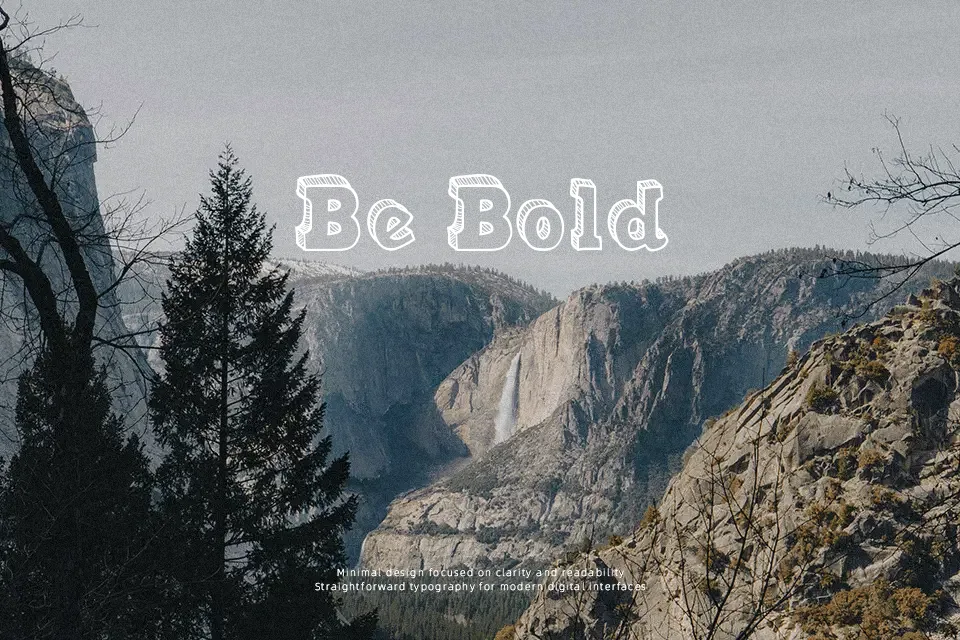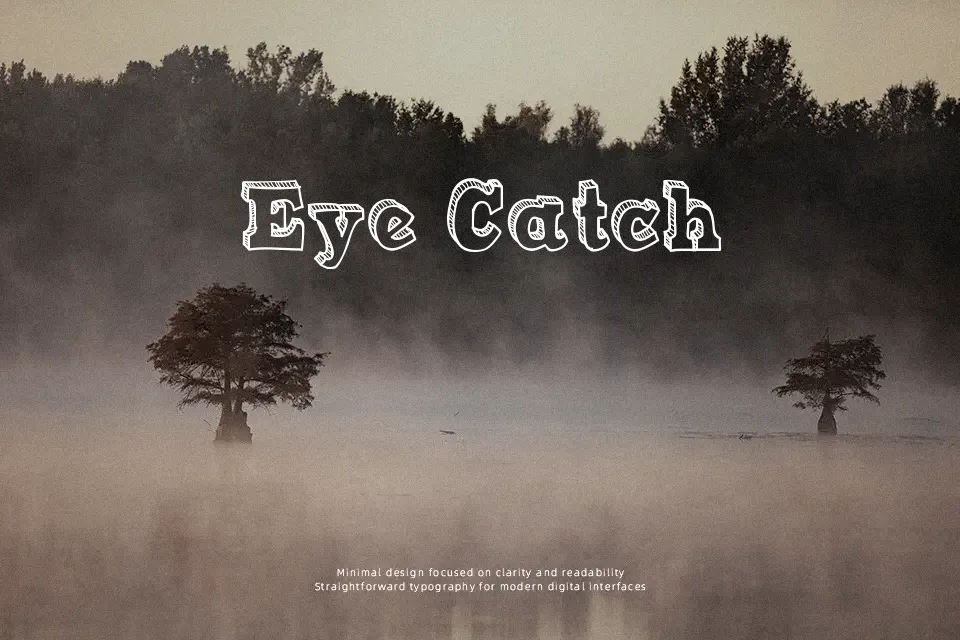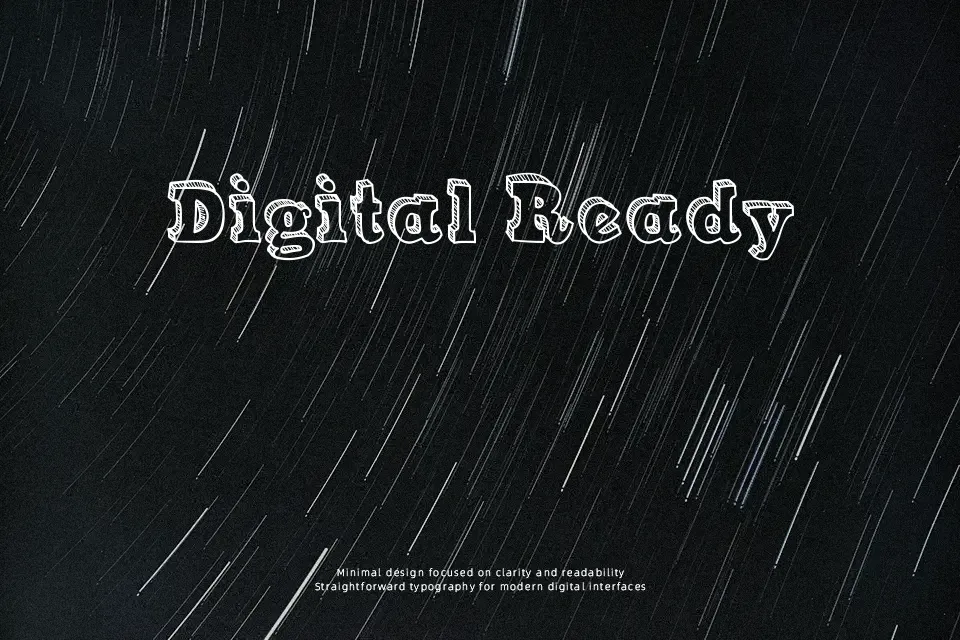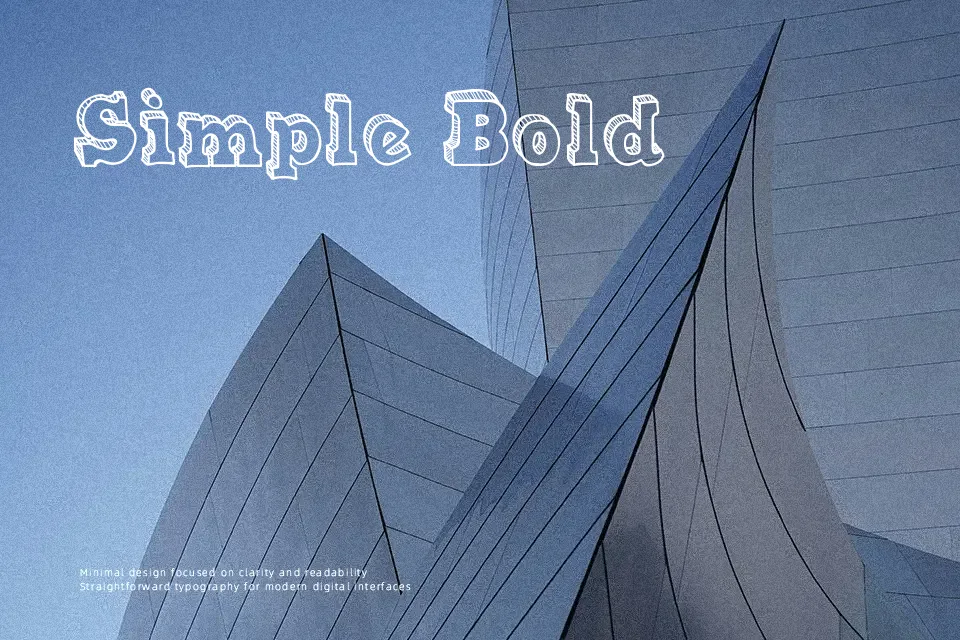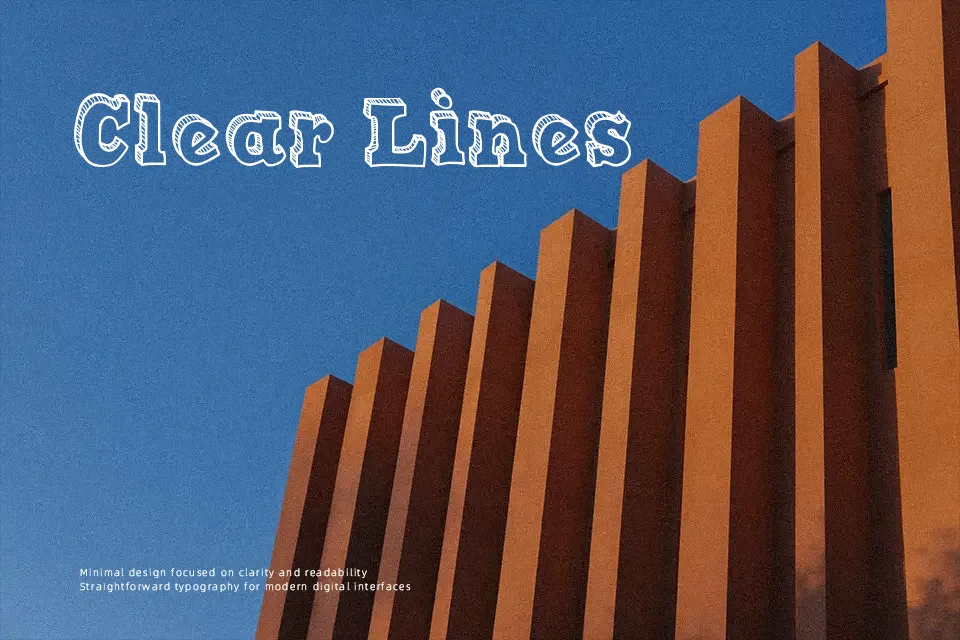
Sketch Match Font
Designed by Galdino Otten Fonts
Built with deliberate sketchy strokes and an illustrated outline, Sketch Match Font displays an animated cartoon structure with moderate contrast and loose character proportions. The letterforms feature uneven pencil-style crosshatching within sturdy glyph boundaries, creating an immediate hand-crafted presence. Generous spacing between characters prevents overlapping in display settings, preserving shape clarity in large poster titles and youth-oriented packaging. However, the intricate internal hatching deteriorates when scaled down, making the design unsuitable for continuous body text or compact interface labels. The dense line texture functions most effectively when showcased in brief, high-impact headline compositions.
comic book titles
children party posters
casual mobile game headlines
illustrated merchandise packaging
continuous paragraph text
mobile application menus
legal documents
dense editorial columns
Perfect for gaming, headline, and kids, with a artistic and cartoon style.